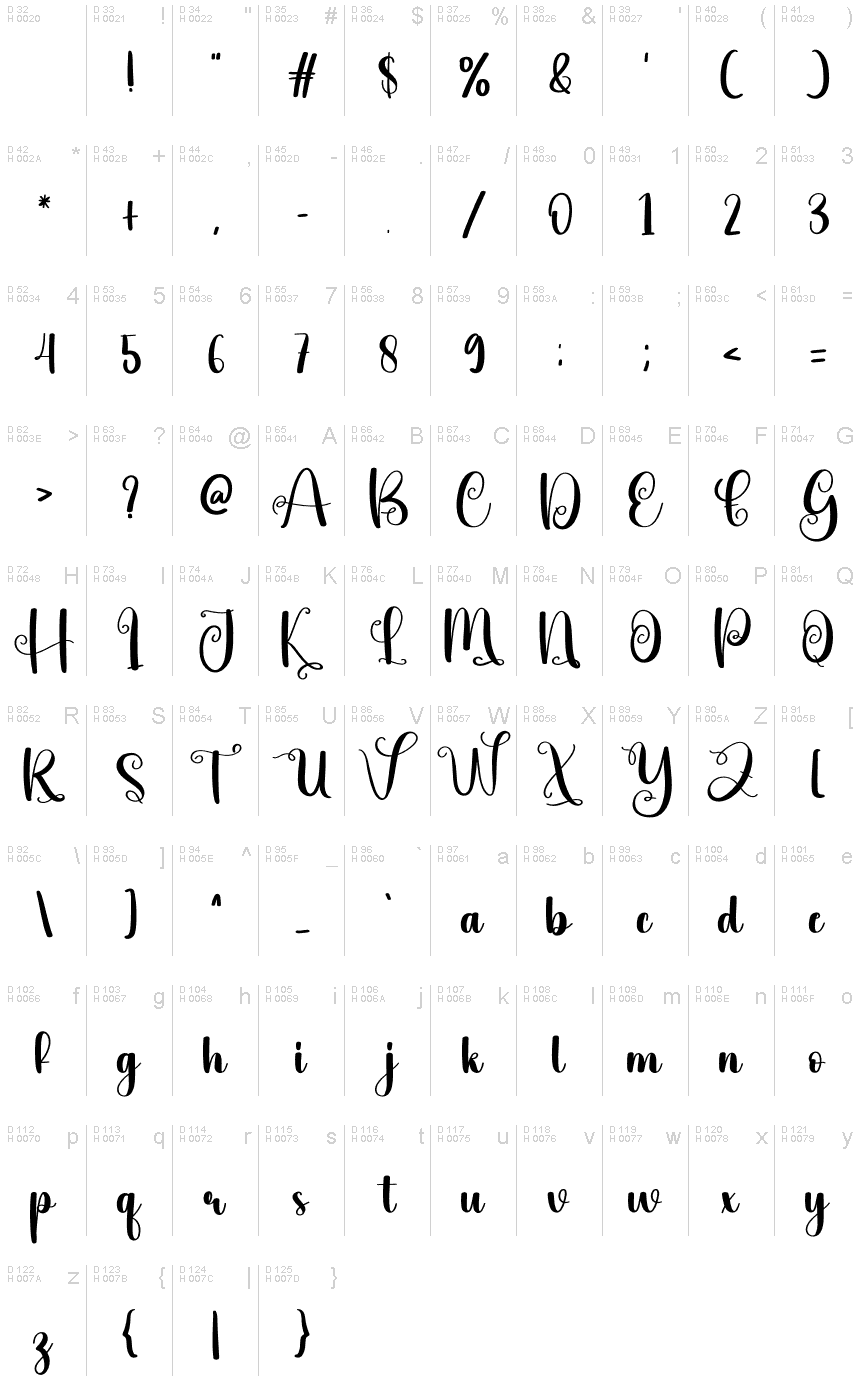
Vegan
Vegan, a masterpiece crafted by Scratchones, stands as a testament to the timeless beauty of calligraphy. This font exudes an organic charm and elegance that harks back to the era of handwritten correspondence with its smooth curves and flowing lines. The unique characteristics of Vegan lie not only in its aesthetic appeal but also in the delicate balance it strikes between ornate detailing and legible simplicity.
The style of Vegan carries a contemporary twist on traditional calligraphy, making it an excellent choice for designers looking to infuse their projects with a touch of sophistication without overwhelming their composition. Its sleek contours and varying stroke weights give it a dynamic texture that can gracefully elevate branding materials, wedding invitations, or any design needing a personal, handcrafted feel.
Versatile in its nature, Vegan offers creative minds the opportunity to apply its distinct style across various mediums—be it digital graphics or print. Whether used for headlines that need to make an impact or for body text that requires an intimate touch, this font maintains readability while offering visual intrigue.
Embrace the allure of Vegan by Scratchones for your next creative endeavor and watch as it transforms ordinary text into artful statements.